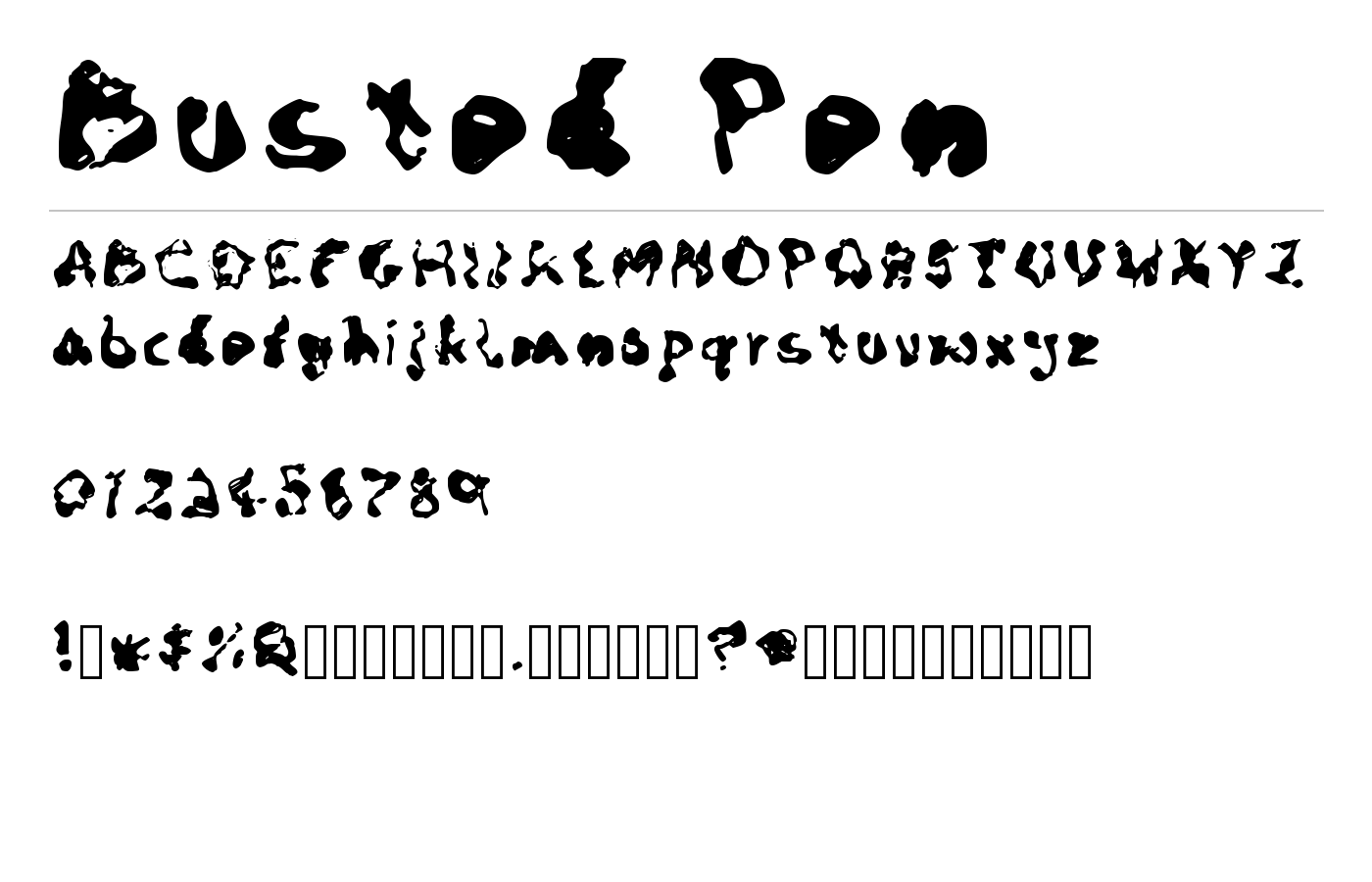
Busted Pen is a distinctive handwritten-style font with an irregular, bold appearance that mimics ink blots or spilled ink marks, giving it a raw and artistic vibe. Its uneven shapes and playful imperfections make it ideal for creative projects, graffiti art, or edgy designs seeking a spontaneous and expressive touch. This font works best in logos, posters, or headlines where a bold, unconventional statement is desired.